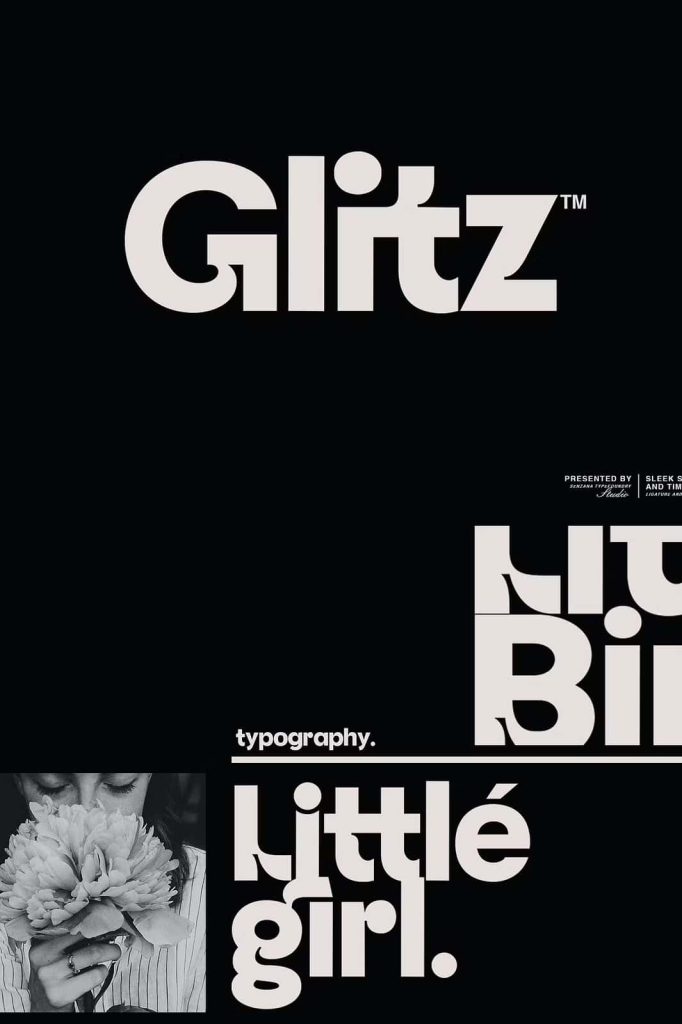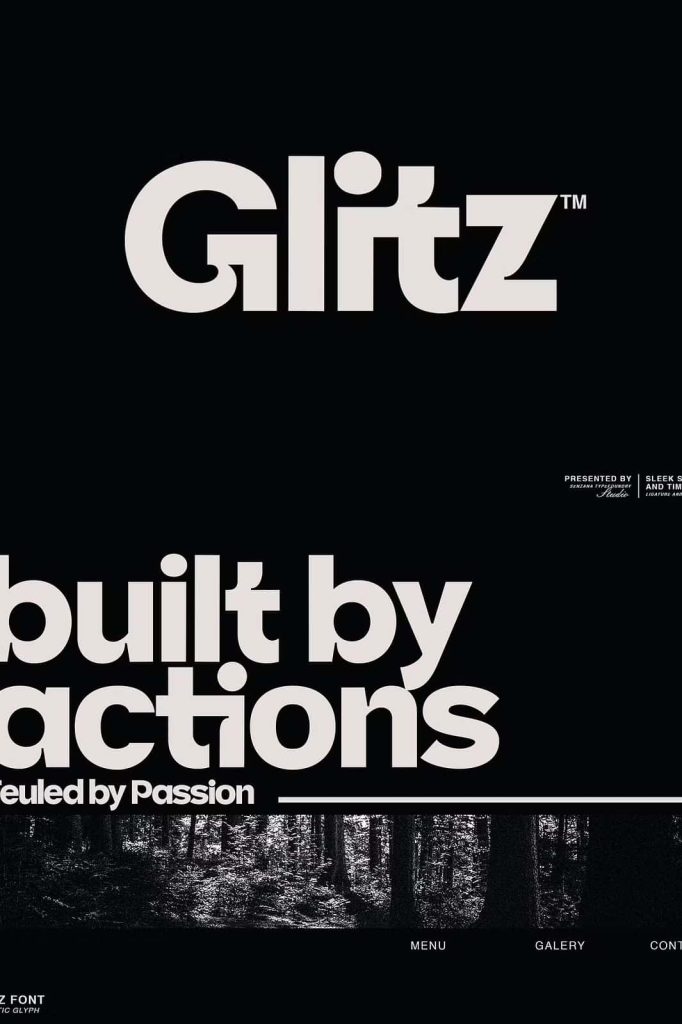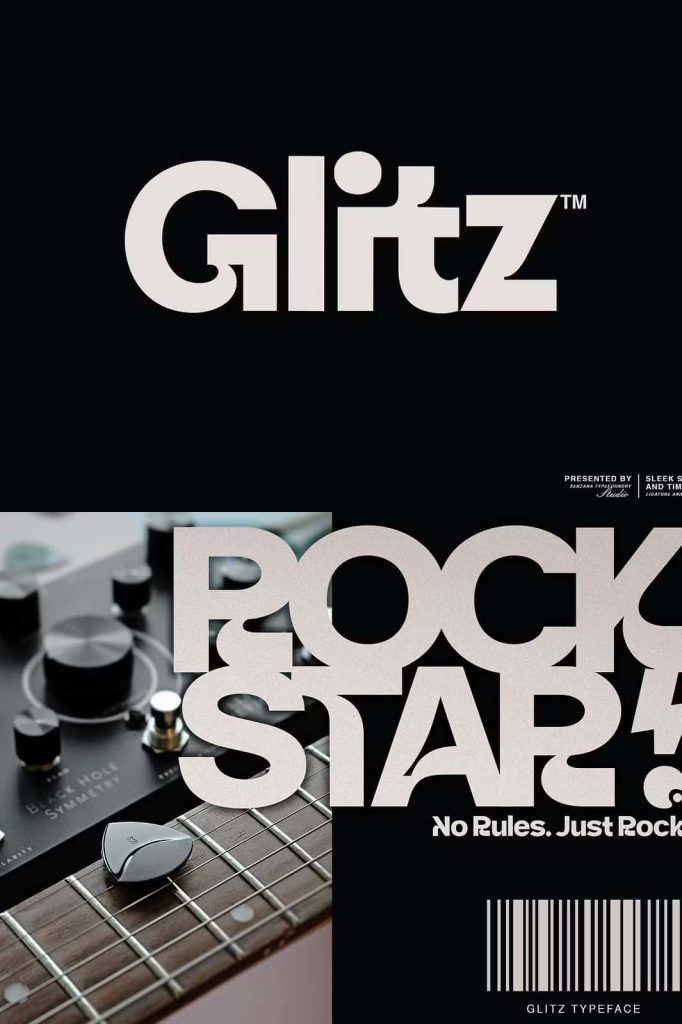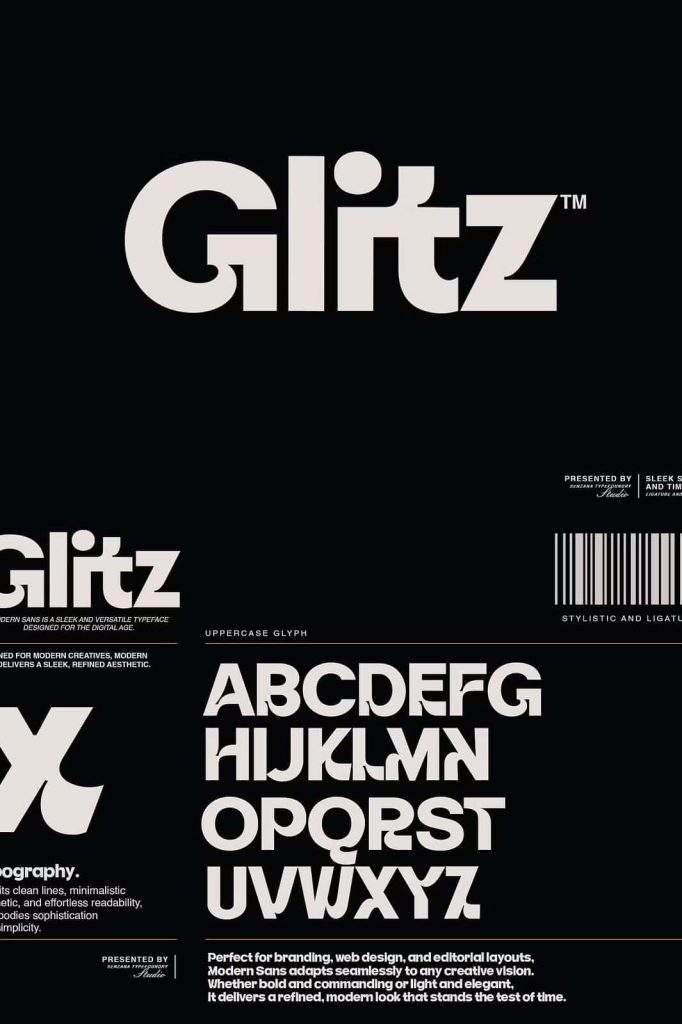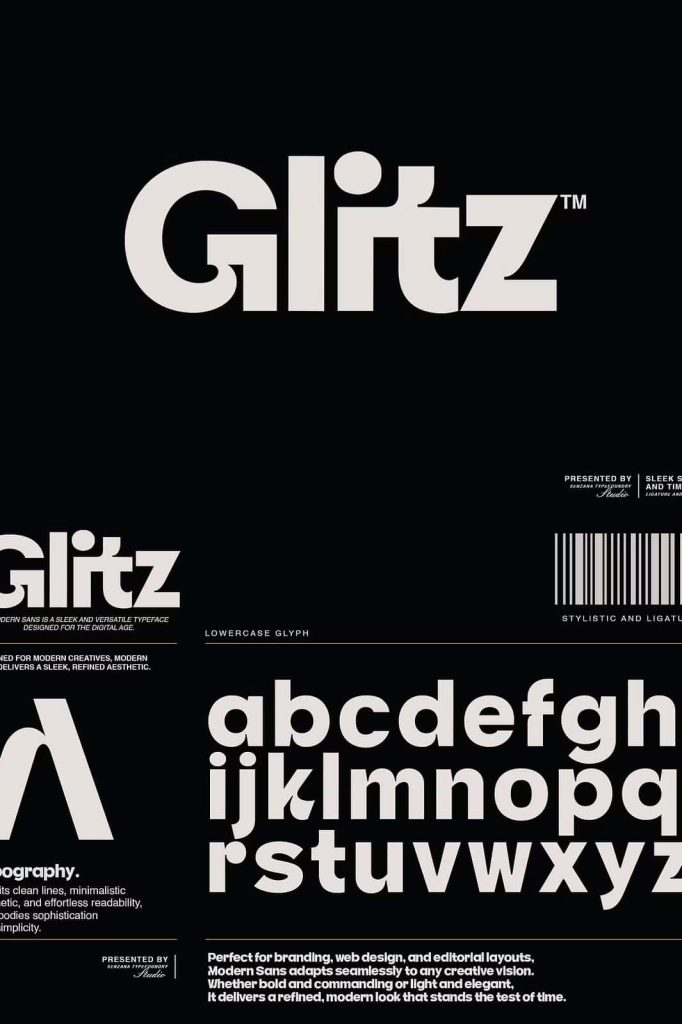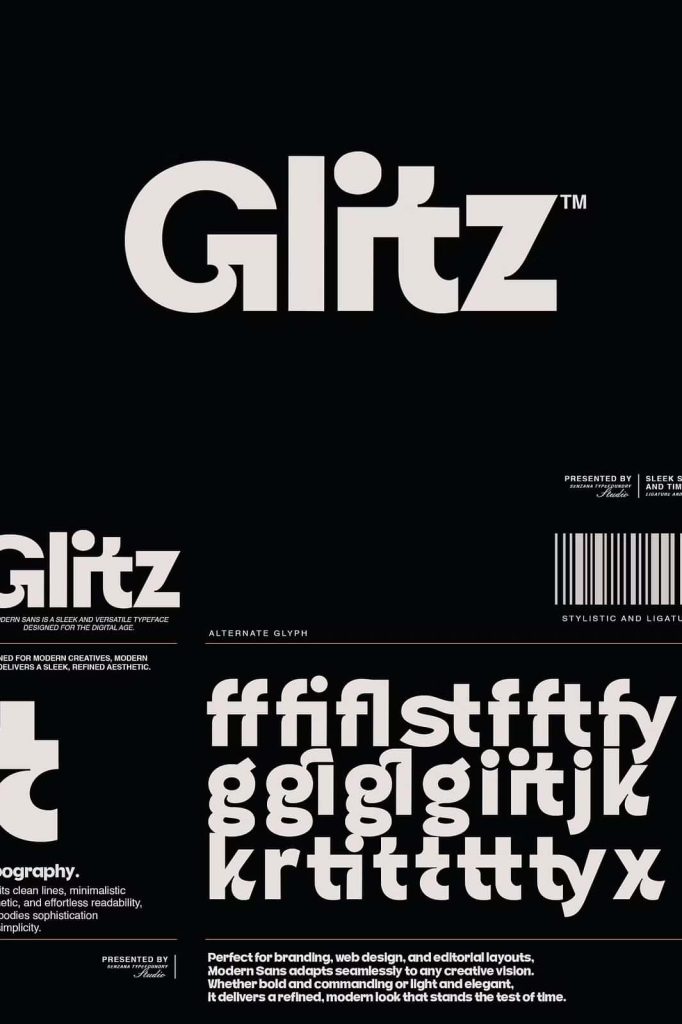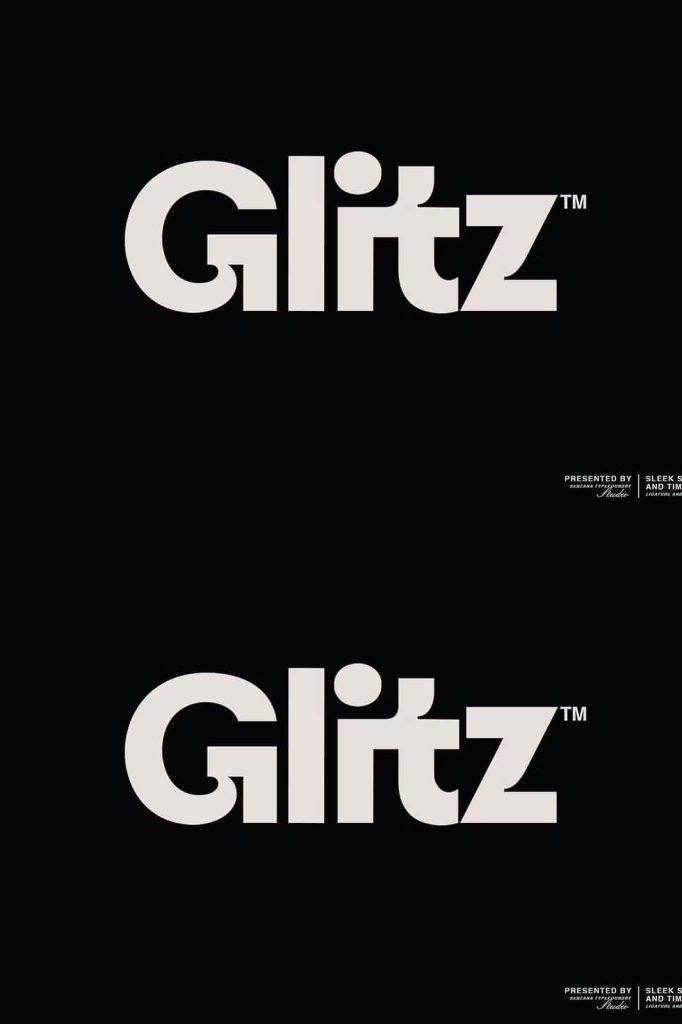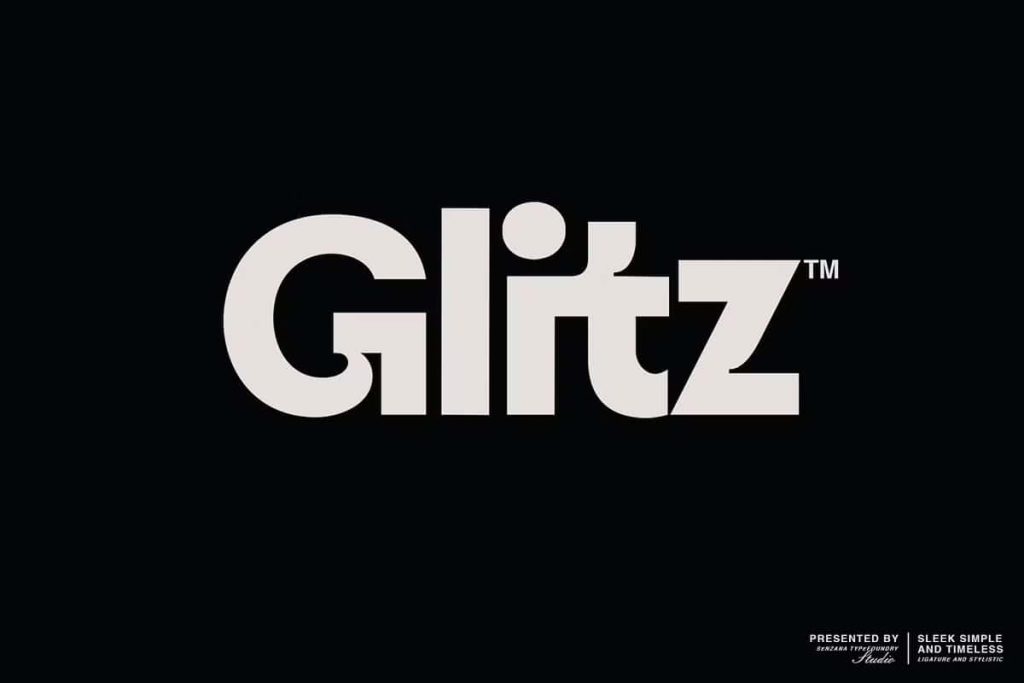
Glitz
Glitz Font: A Modern Sans-Serif Typeface with Elegant Simplicity
Glitz is a modern sans-serif typeface designed to deliver clarity, sophistication, and visual confidence. By blending elegance with simplicity, this font creates a sleek and polished appearance that feels contemporary and intentional. Every letterform is carefully shaped to communicate refinement without unnecessary complexity, making Glitz a powerful choice for designers who value clean aesthetics and strong visual identity.
A Refined Approach to Modern Typography
At its core, Glitz focuses on balance and proportion. The typeface avoids excessive decoration and instead relies on precise geometry, consistent spacing, and thoughtful structure. This refined approach allows the font to feel calm and confident while maintaining a distinctive character. Glitz proves that minimalism does not have to feel plain; it can express personality through subtle detail and controlled form.
The smooth curves and sharp lines work together to create a harmonious rhythm across text. This rhythm enhances readability and ensures that the font performs well in both short headlines and longer content. Designers can rely on Glitz to support clear communication while elevating the overall visual tone of their projects.
Designed for Sleek and Polished Visual Identity
Glitz excels in projects that demand a clean, professional, and modern appearance. Its polished look makes it especially effective for visual identities that aim to communicate quality, confidence, and contemporary style. The font adapts easily to different design contexts while maintaining a consistent and recognizable presence.
By combining simplicity with elegance, Glitz helps brands express sophistication without appearing cold or impersonal. It creates a welcoming visual language that feels modern, trustworthy, and visually appealing across all platforms.
Versatile Applications Across Design Fields
The versatility of Glitz allows it to perform across a wide range of creative applications. Its minimalist structure ensures flexibility, while its unique details add enough character to stand out. Whether used in digital or print design, Glitz maintains clarity and visual impact.
Branding and Logo Design
In branding and logo design, Glitz delivers a strong foundation for modern identities. The clean letterforms help logos